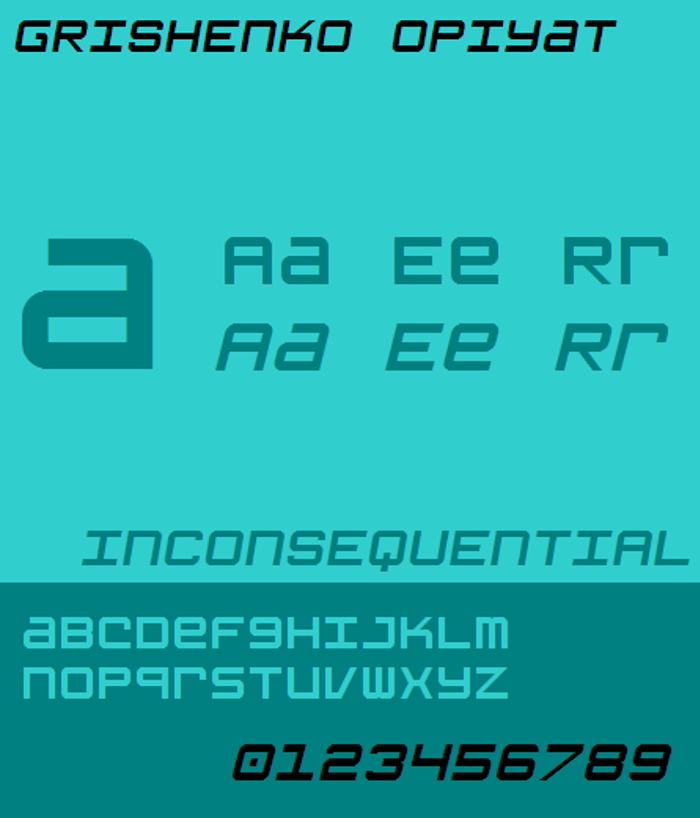
Grishenko Opiyat NBP Font
A redesign of Grishenko Novoye. Opiyat is Russian for "again" (so "Grishenko Again"). Inspired somewhat by the House Industries design Spaceport.
@WolfLambert Let me see if I can remember them all... 😛 I know I redesigned the K and the X, there are some alternate characters in the fullwidth area, and maybe some cosmetic changes to a few of the ASCII characters.
That's a shame; Grishenko needs to be revived.
According to Translate, "again" is properly spelt "opyat" (опять) in Russian. Let's just pretend I spelt it right in the font name, shall we? Спасибо.